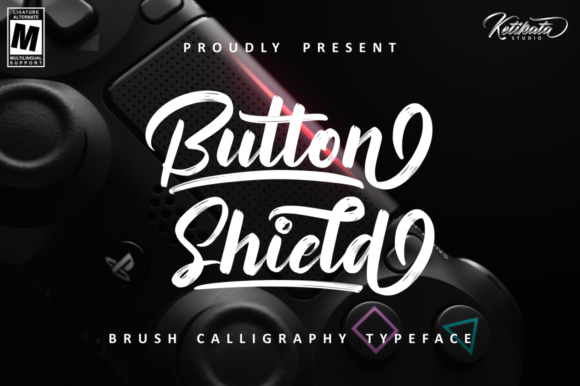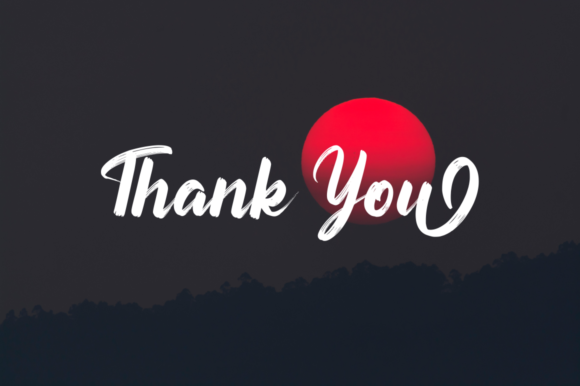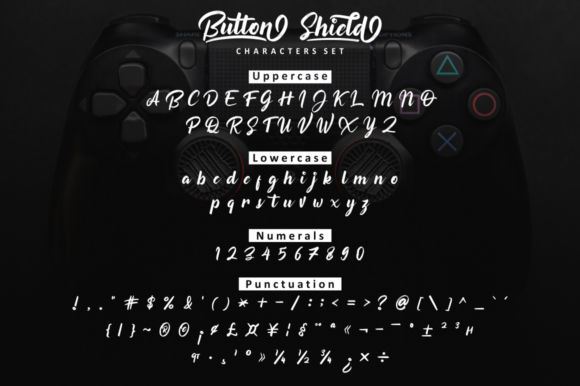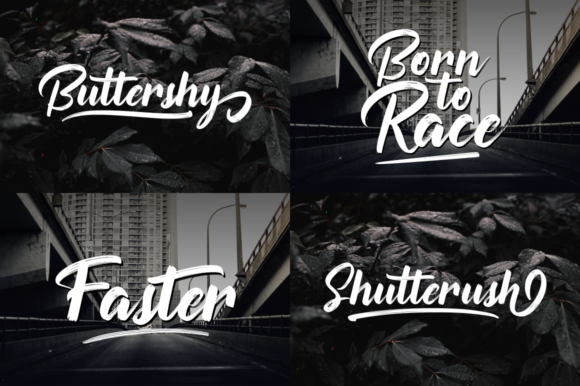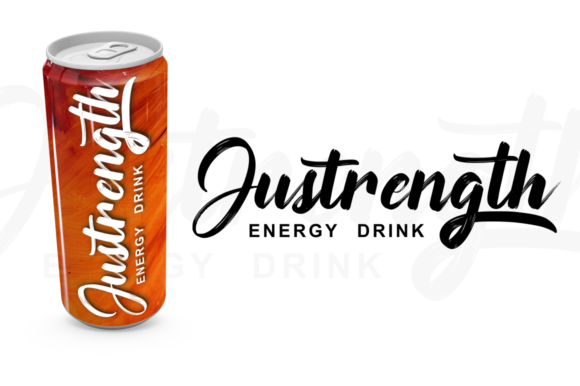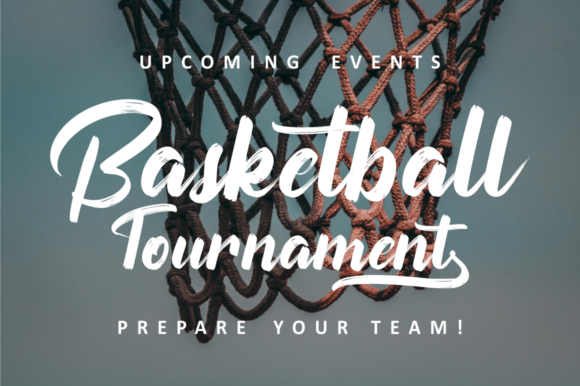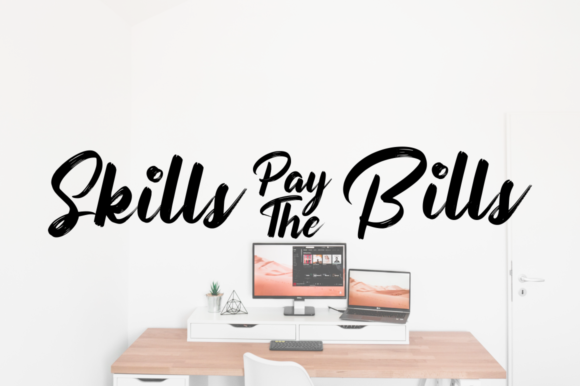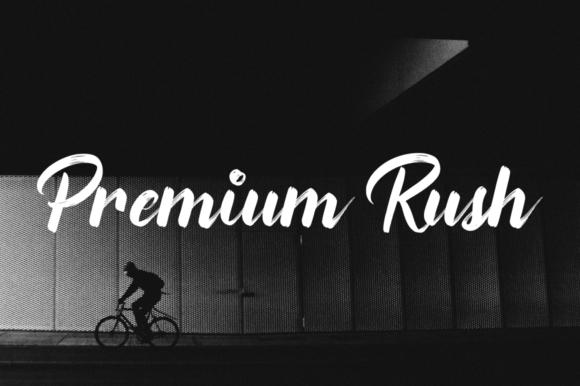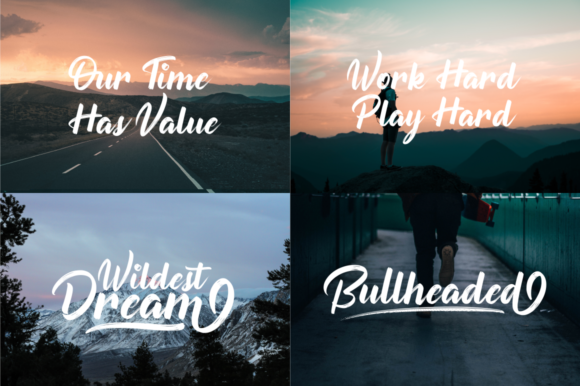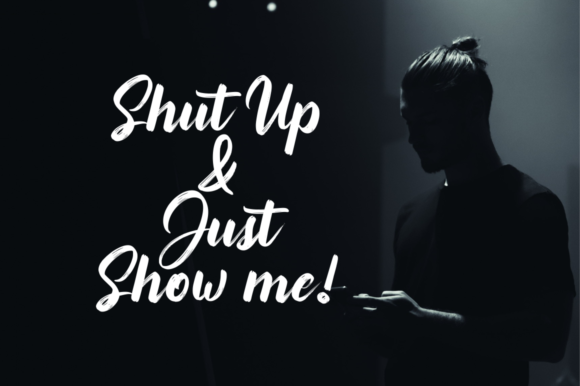
HomeScript FontsButton Shield Font Script Fonts Button Shield Font FacebookXPinterestWhatsApp Button Shield Font Poster 2 Button Shield Font Poster 3 Button Shield Font Poster 4 Button Shield Font Poster 5 Button Shield Font Poster 6 Button Shield Font Poster 7 Button Shield Font Poster 8 Button Shield Font Poster 9 Button Shield Font Poster 10 About Button Shield Font Button Shield is a unique handwritten brush font with a bold touch. It will inspire any new design idea! DOWNLOAD NOW People also explored Lawraise Font Mahendla Font Brithsic Font Minimalistic Font Wave Font Ancient Font Rasella Font Semprul Font Scream Font 332 0 TagsButton Shield Font Previous articleSelectric Script FontNext articleStay Ontheway Font LEAVE A REPLY Cancel reply Comment: Please enter your comment! Name:* Please enter your name here Email:* You have entered an incorrect email address! Please enter your email address here Website: Save my name, email, and website in this browser for the next time I comment. Personal Use Free Joystix Monospace Personal Use Free Read more about this font Concrete Wall Personal Use Free Read more about this font Sweety Blue Personal Use Free Read more about this font Carnivals Personal Use Free Read more about this font BLOG Top 7 Google Fonts Alternatives for Faster and Privacy-Friendly Web Design (2025) Top 7 Google Fonts Alternatives for Faster and Privacy-Friendly Web Design (2025) When it comes to web typography, Google Fonts has long been the go-to... To increase your work productivity, choose the most readable fonts. Where to Buy American Fonts Online in 2024 Elegant Wedding Invitation Fonts – Handwritten & Script Fonts